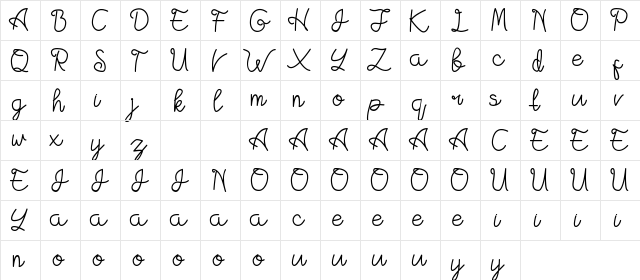
Pink Tinge Demo Regular
| Foundry | Edric Studio |
| Designer | Lukman & Sarah Suci P |
Design Context for Pink Tinge Demo Typeface
Pink Tinge Demo takes a measured approach to typography — its balanced proportions and neutral character make it a reliable workhorse for both digital and print work.